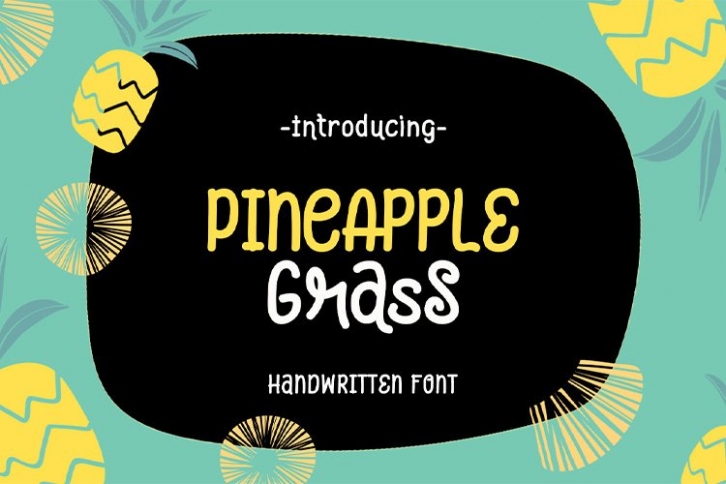
Pineapple Grass is a great font that was designed by NicoMuslib. Imagine the amount of combinations you can create using this font! The archive is 21.10 MB and it was released on May 4, 2020. Pineapple Grass looks beautiful on wedding invitations, greeting cards, logos, posters, labels, t-shirt designs, logos, business cards and is perfect for use in ink or watercolor works, fashion, magazines, packaging and food menus, children's books and more!